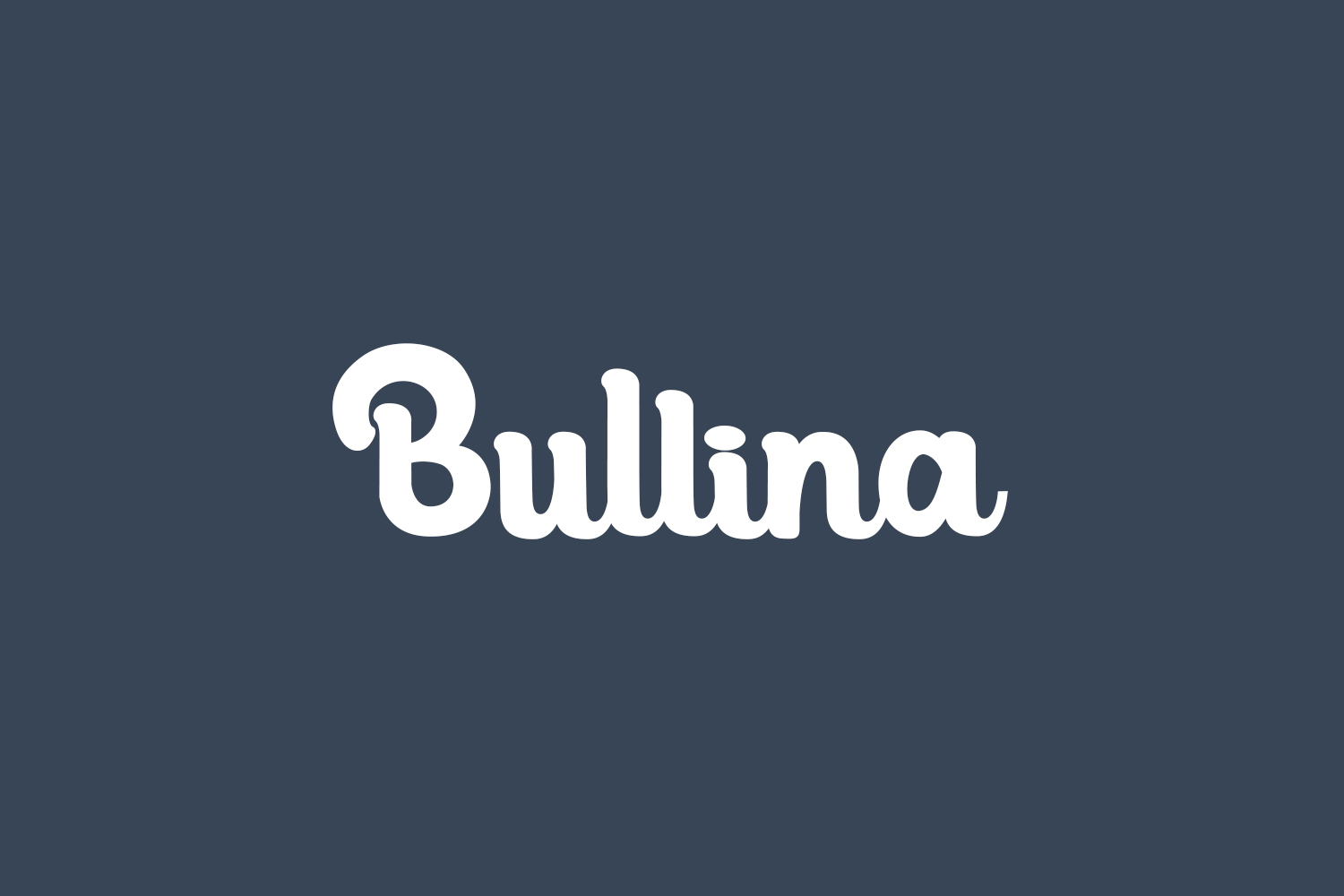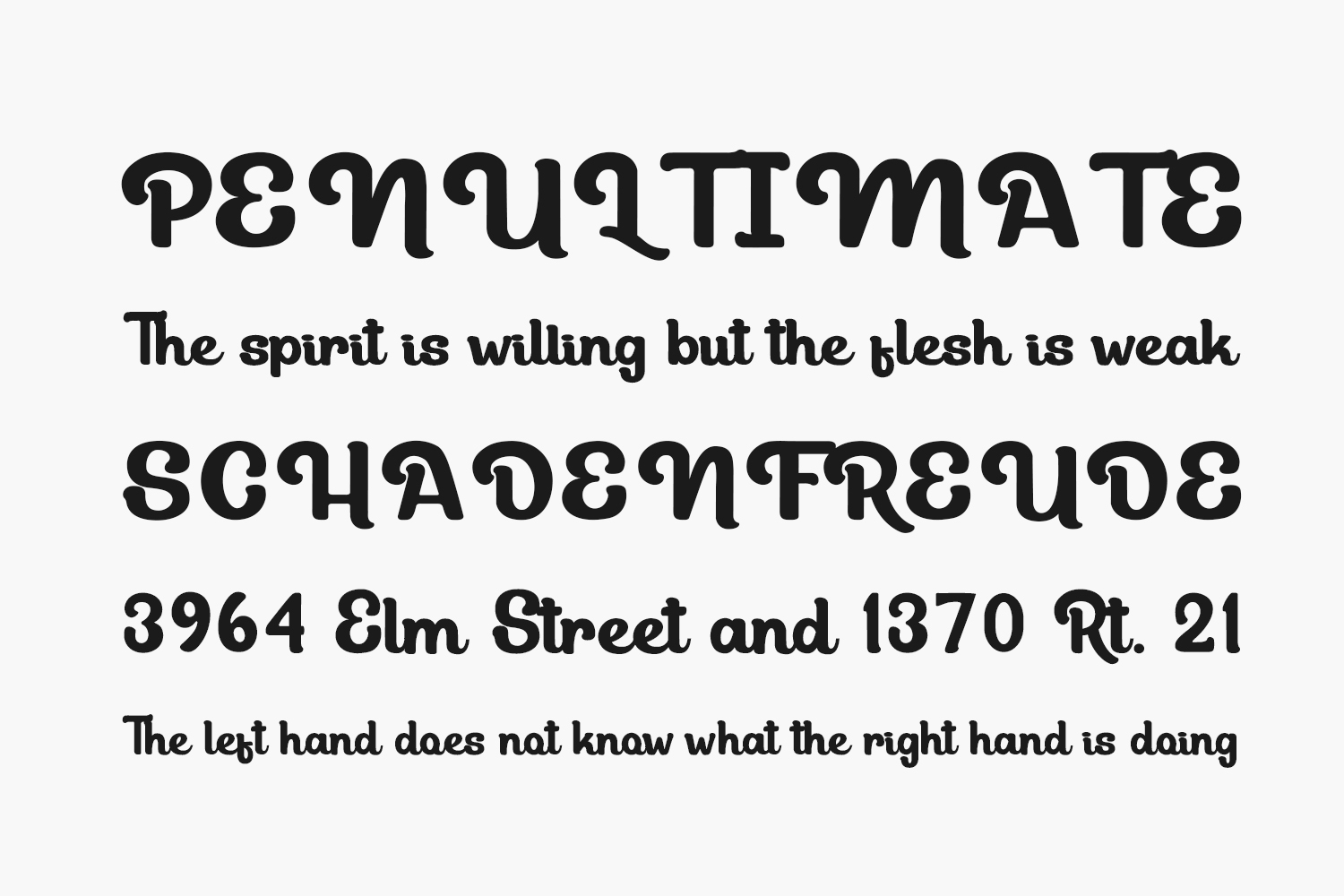
Bullina Free Font is a magical, thick lettered script font carefully created with a touch of elegance. Whether you’re looking for fonts for Instagram or calligraphy scripts for DIY projects, this font will turn any creative idea into a true piece of art. Bullina Free Font was designed by Eknoji Studio and is free for personal use only. Please purchase the full version for commercial use.